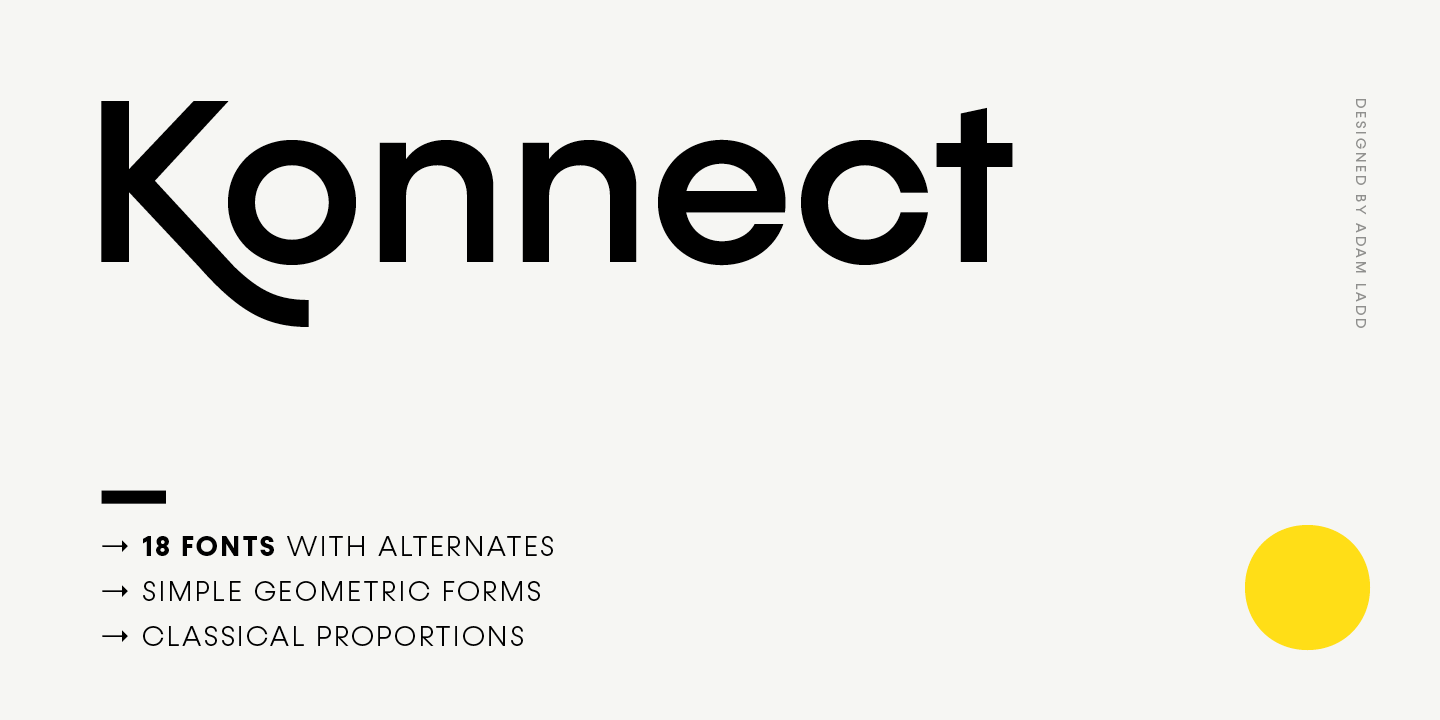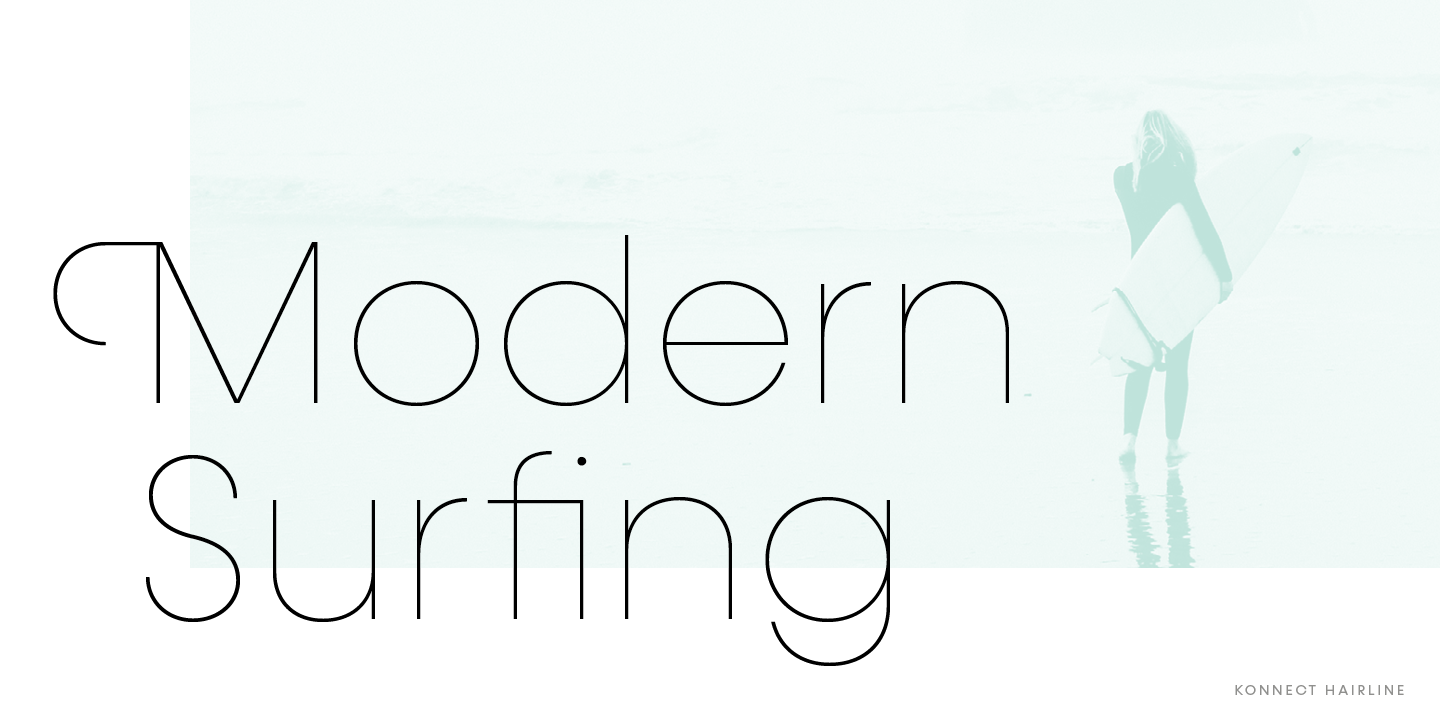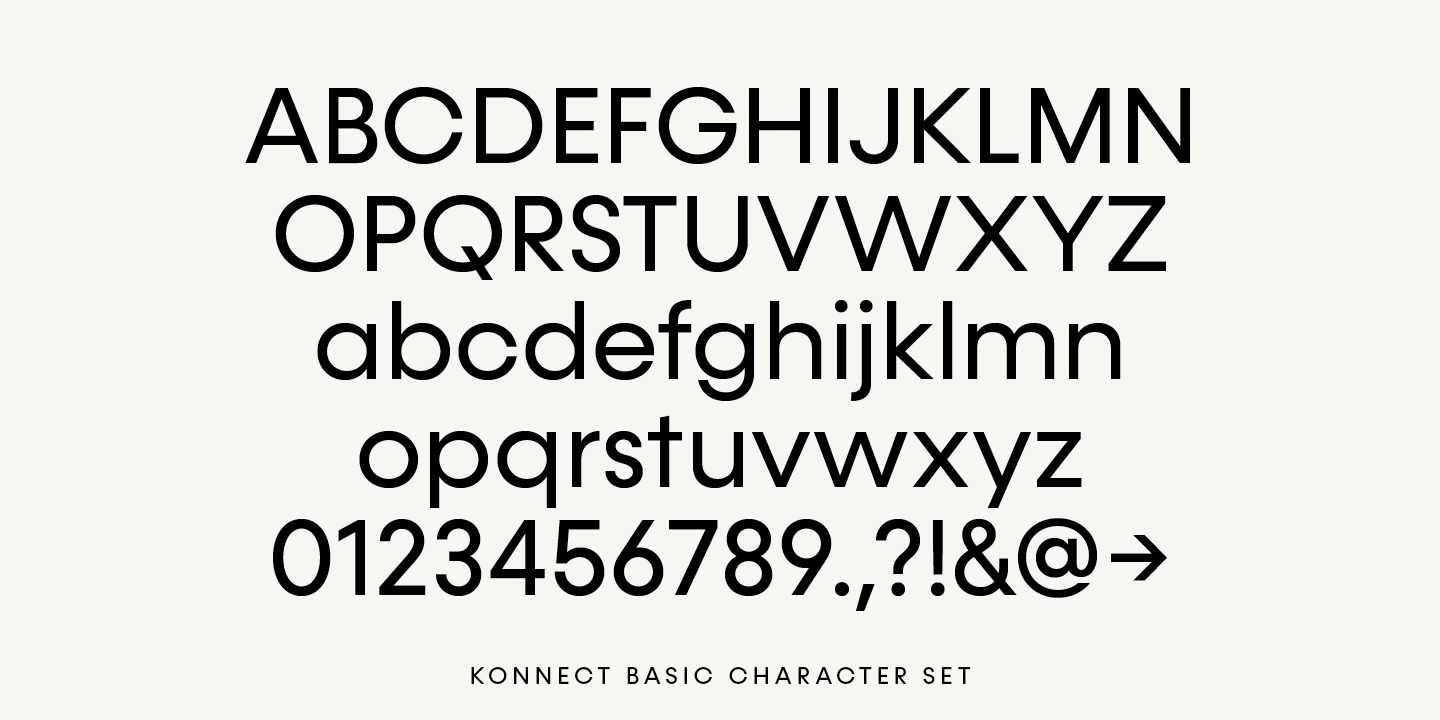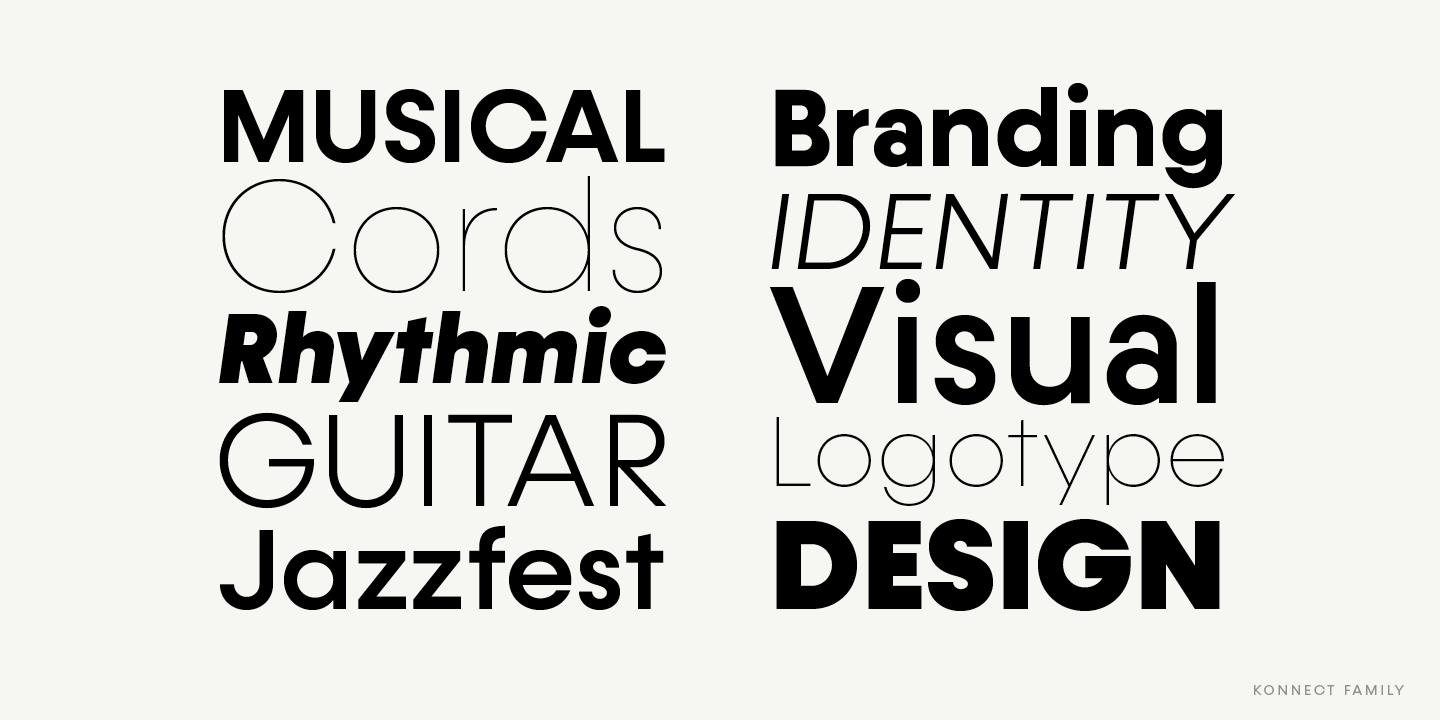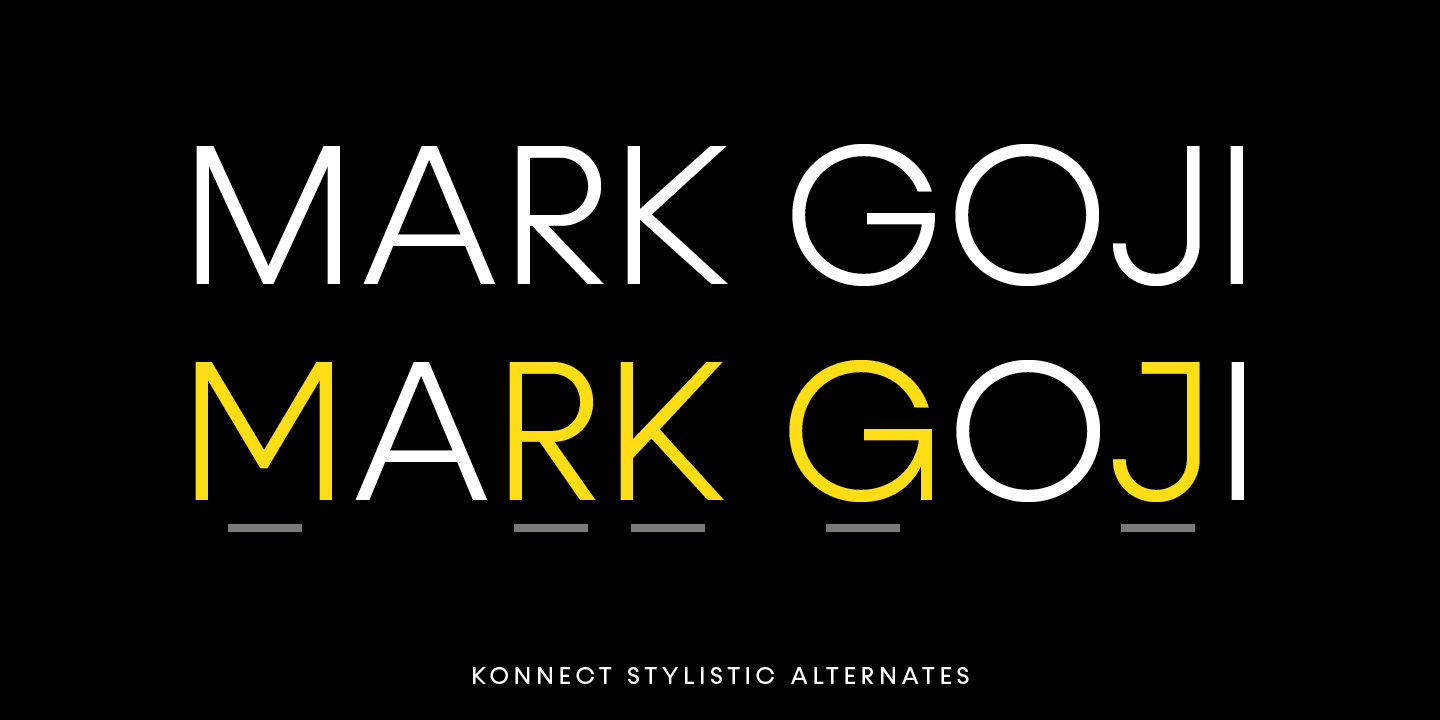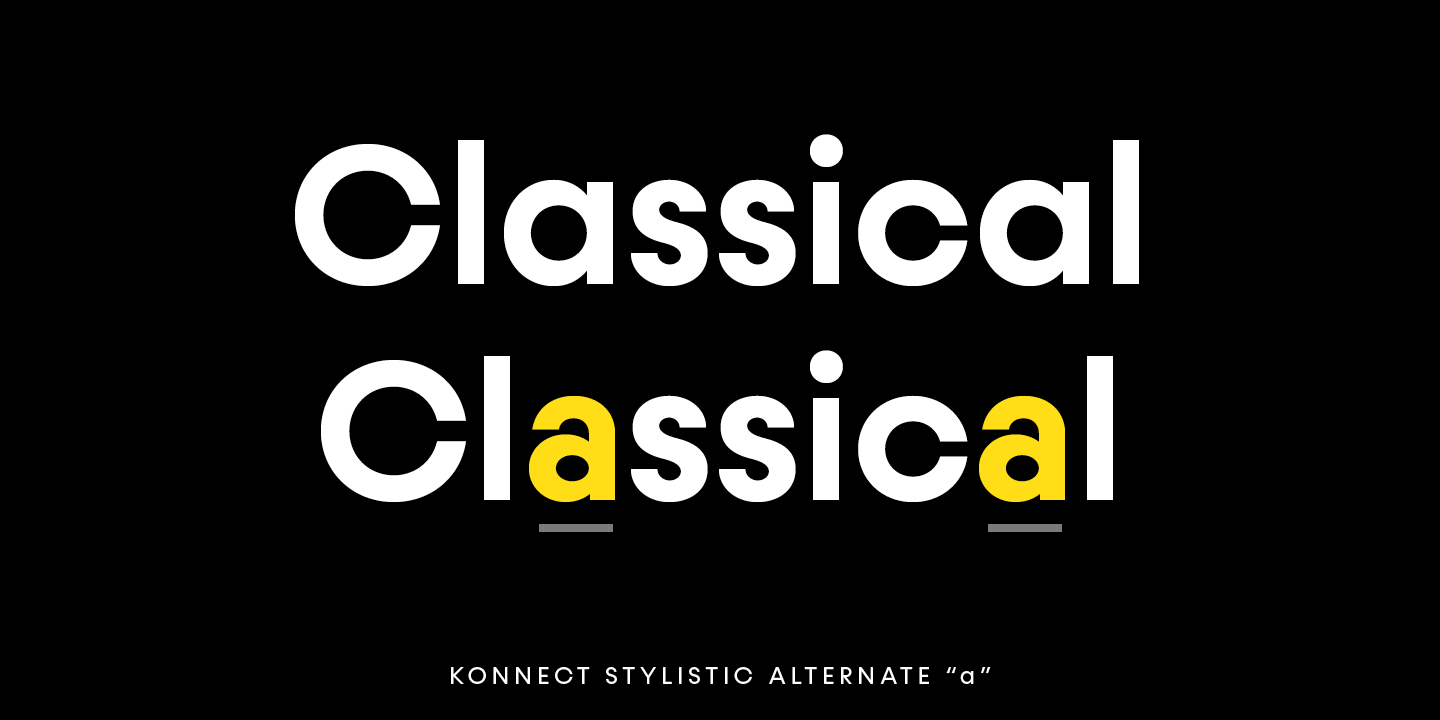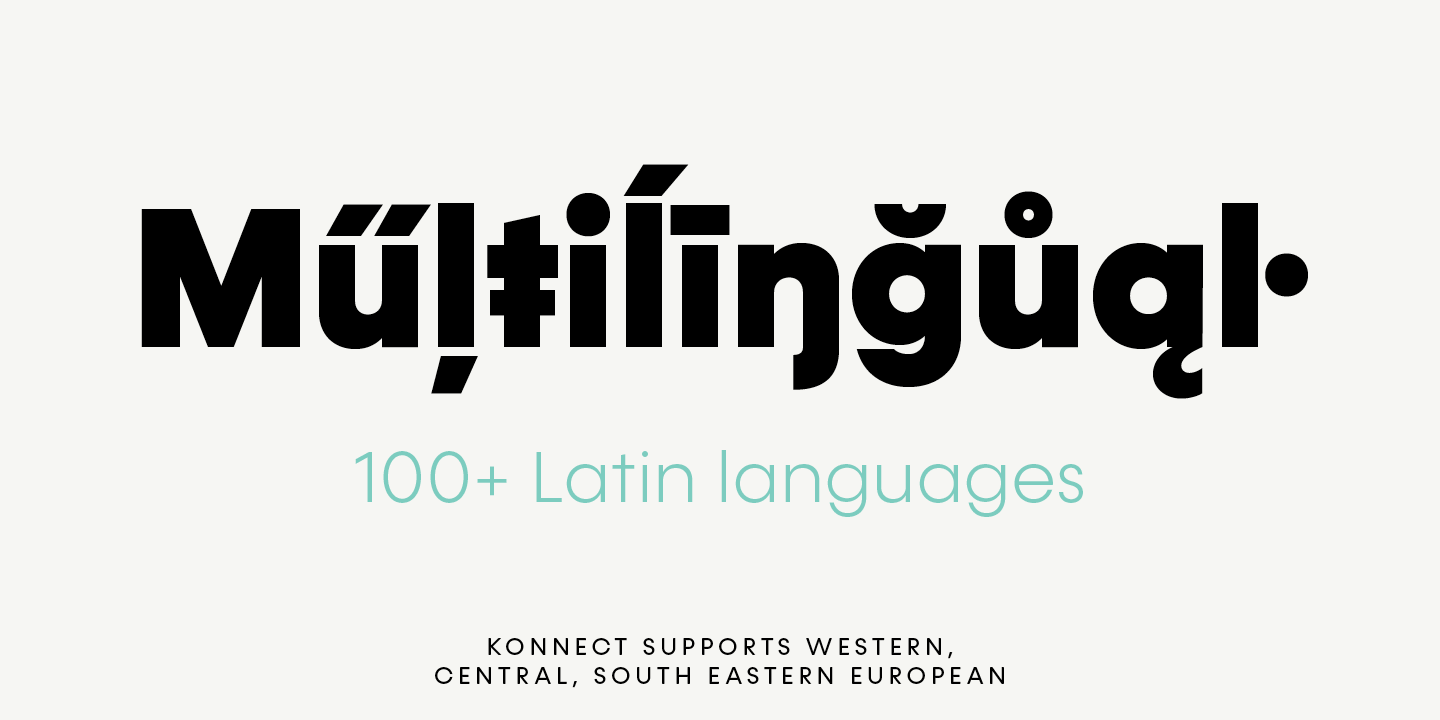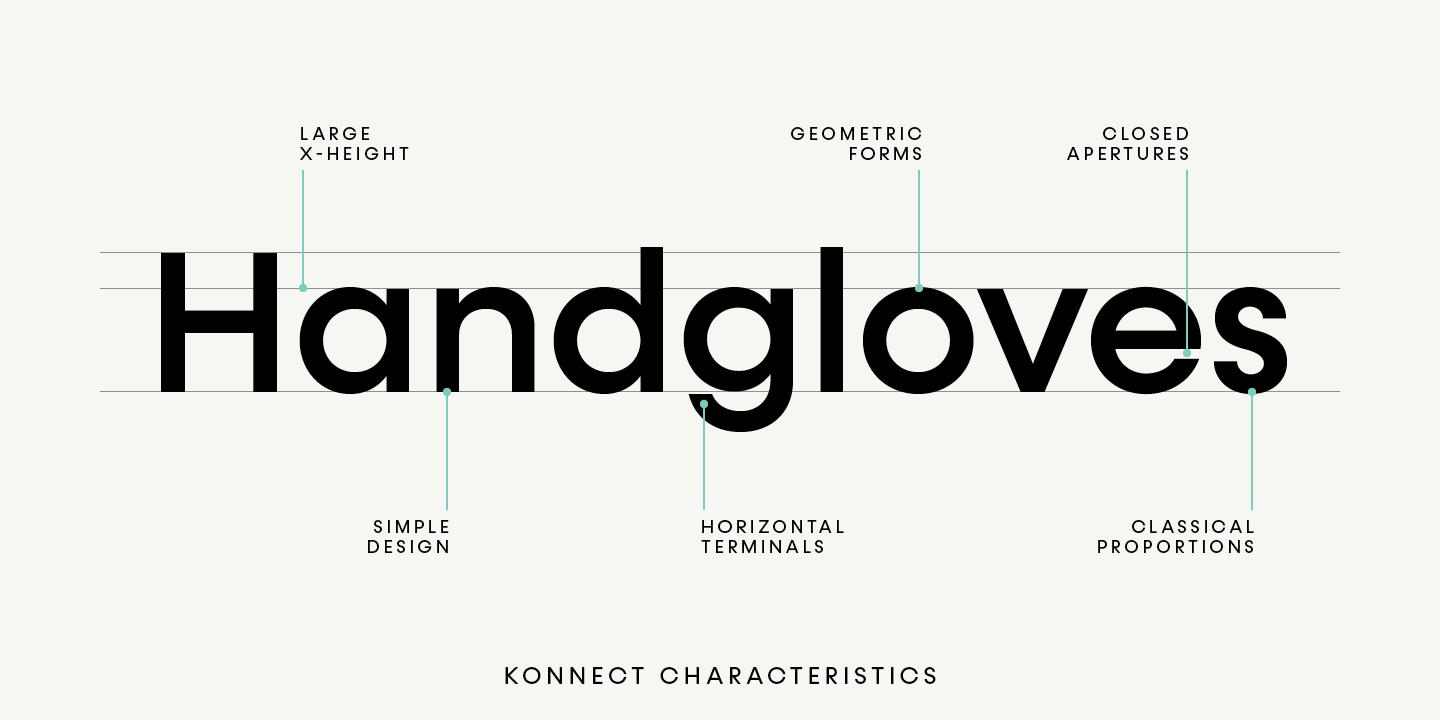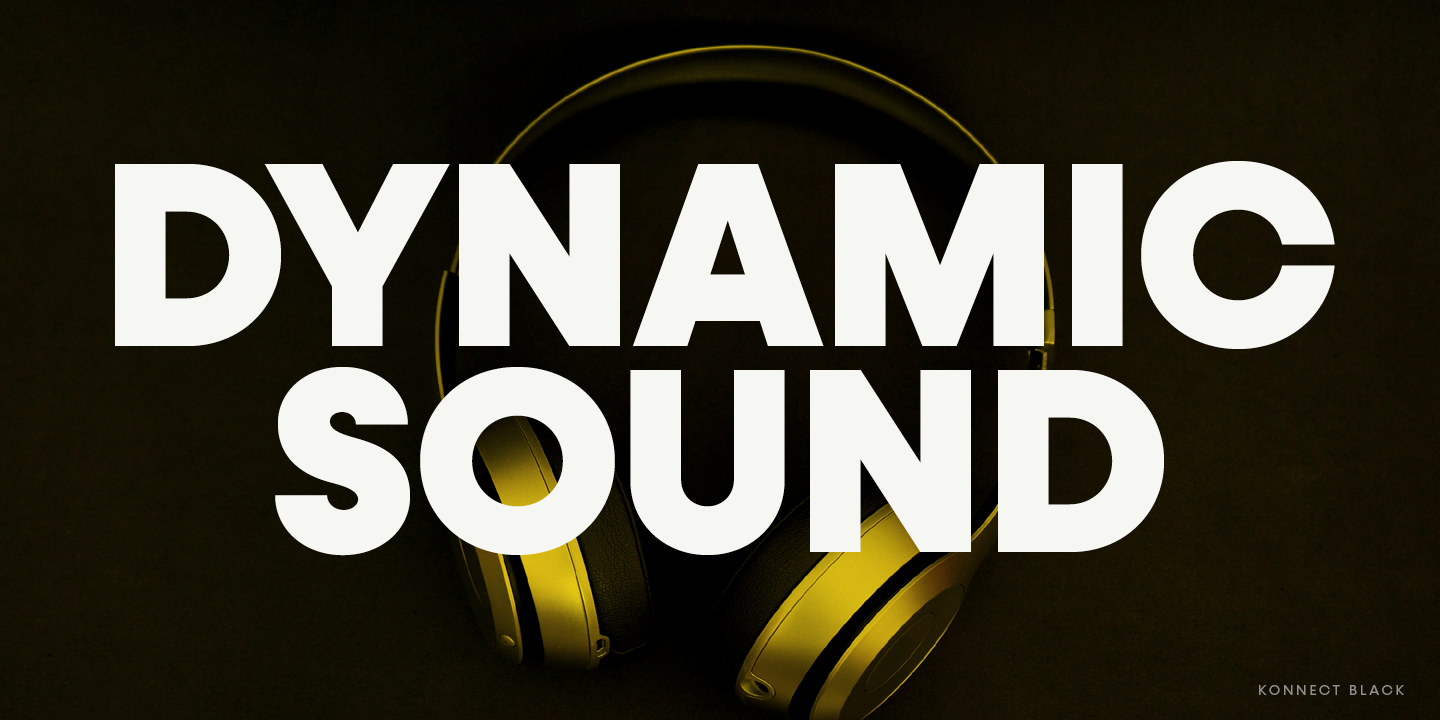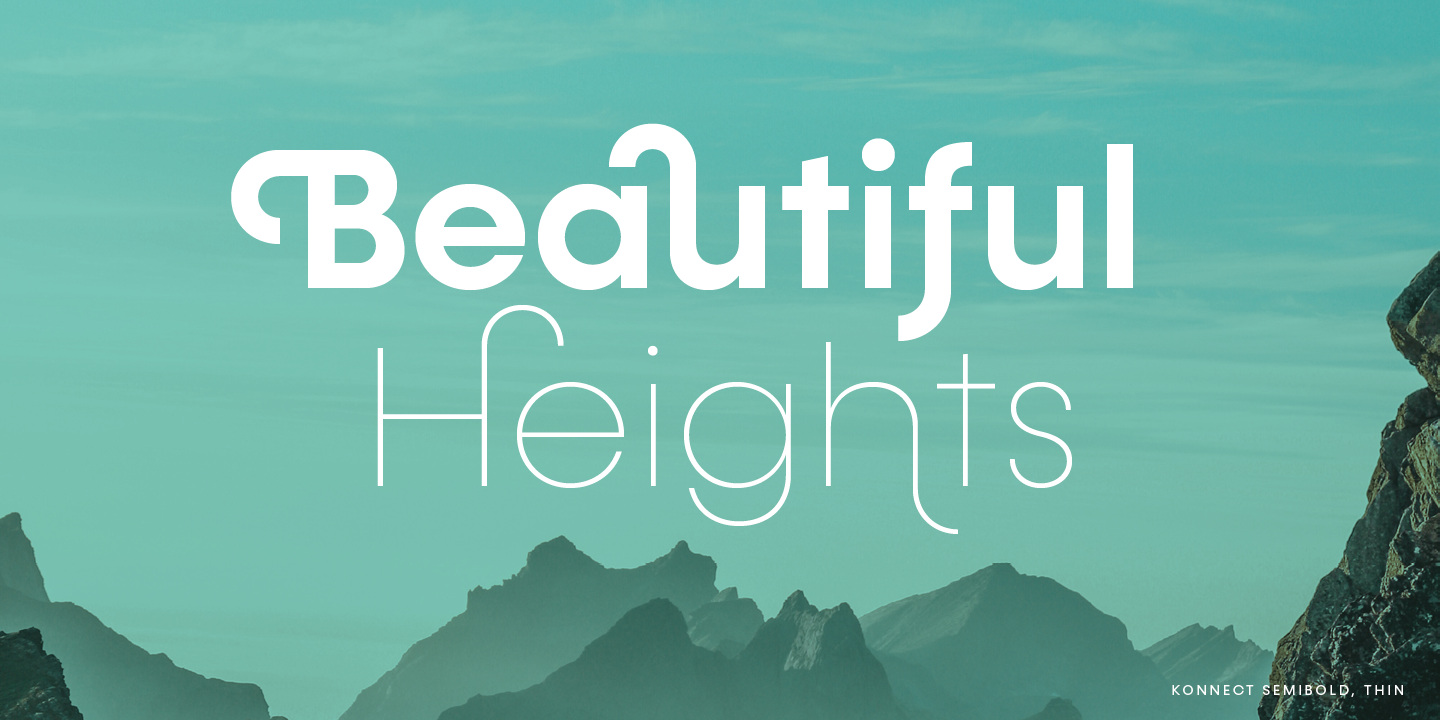
Konnect is a geometric sans serif type family featuring a blend of modern, classical, and playful characteristics. The simple, clean forms and classically-inspired proportions give it a timeless quality and interesting visual rhythm. A large x-height, closed apertures, and horizontal/vertical terminals provide for a more distinct appearance, especially in display settings. And the multiple swashes, stylistic alternates, and arrow icons are all available to enhance your typography.
This family includes a robust range of weights, from a fine and functional Hairline to a hefty and confident Black, each with italics. Konnect is ideal for branding, advertising, logos, magazines, headlines, and more, while its simplicity allows it to be a useful family for many occasions.
Konnect includes many OpenType features to enhance your design: Swashes. Stylistic alternates. Standard and discretionary ligatures. Case-sensitive punctuation for All Caps. Fractions, numerators, denominators. Superscript, subscript.
With over 600 glyphs, this font has extensive Latin language support (100+ Latin languages) for Western, Central, and South Eastern European.